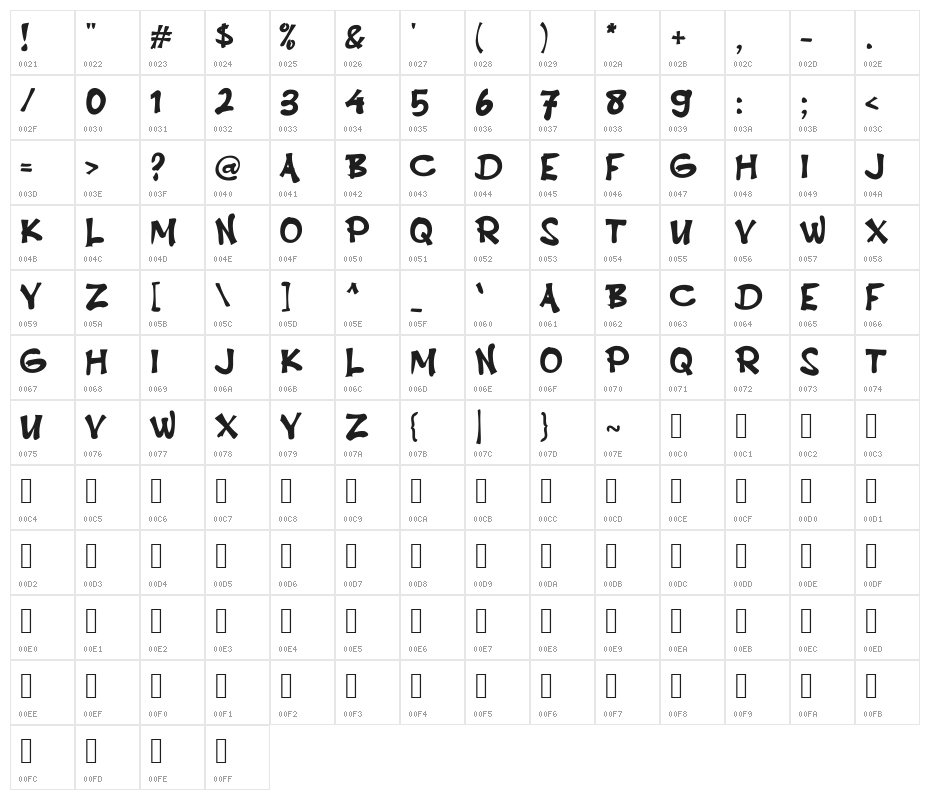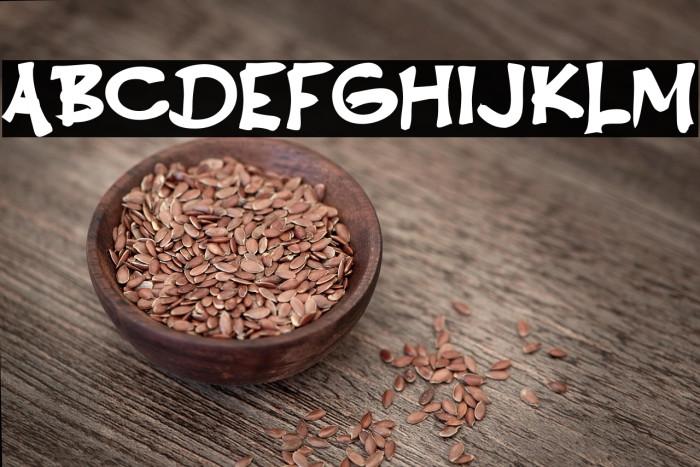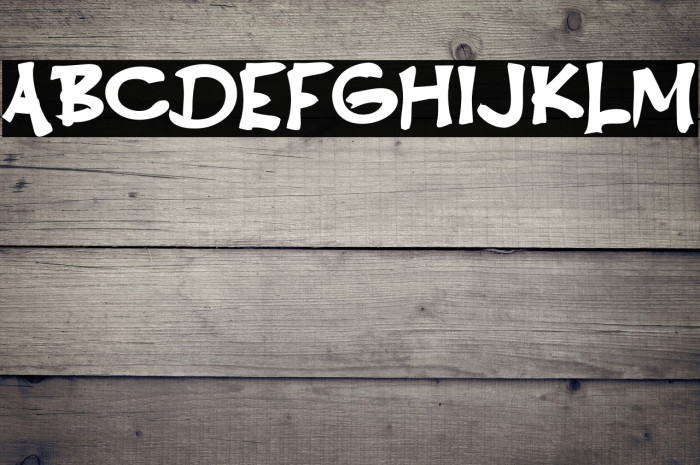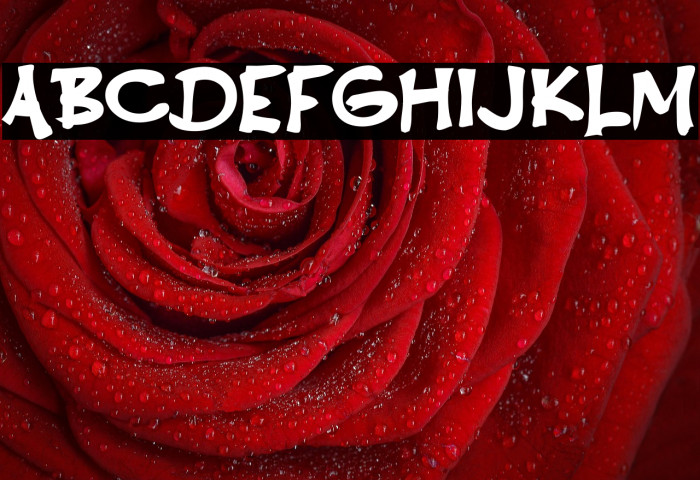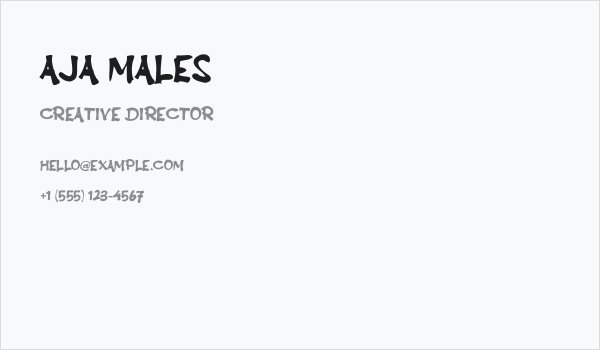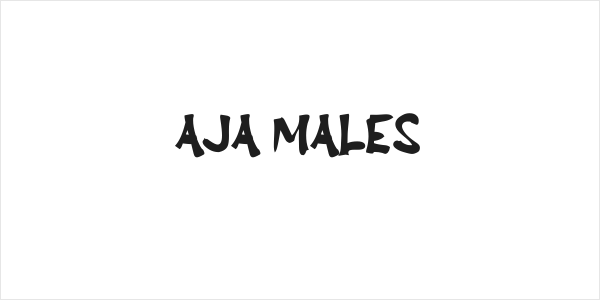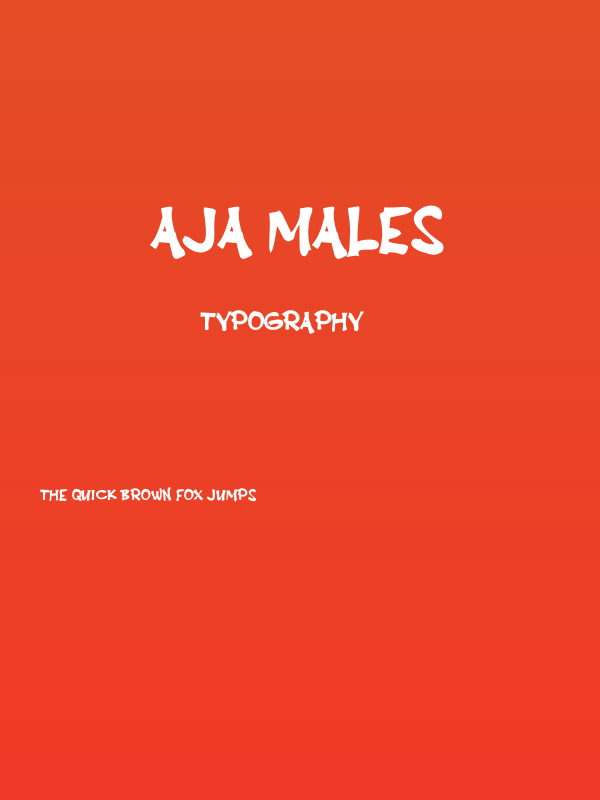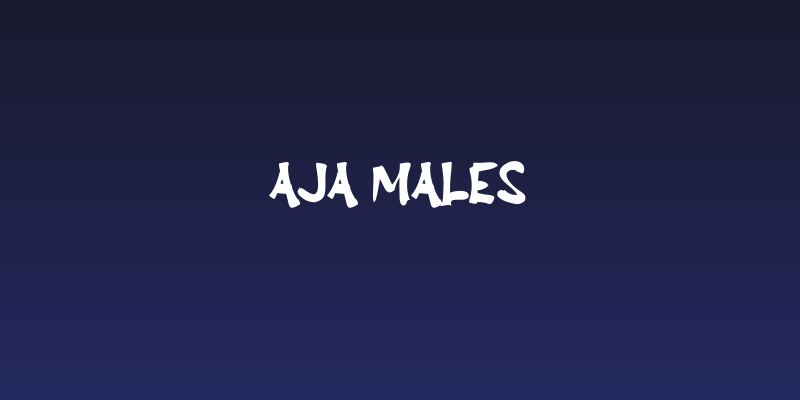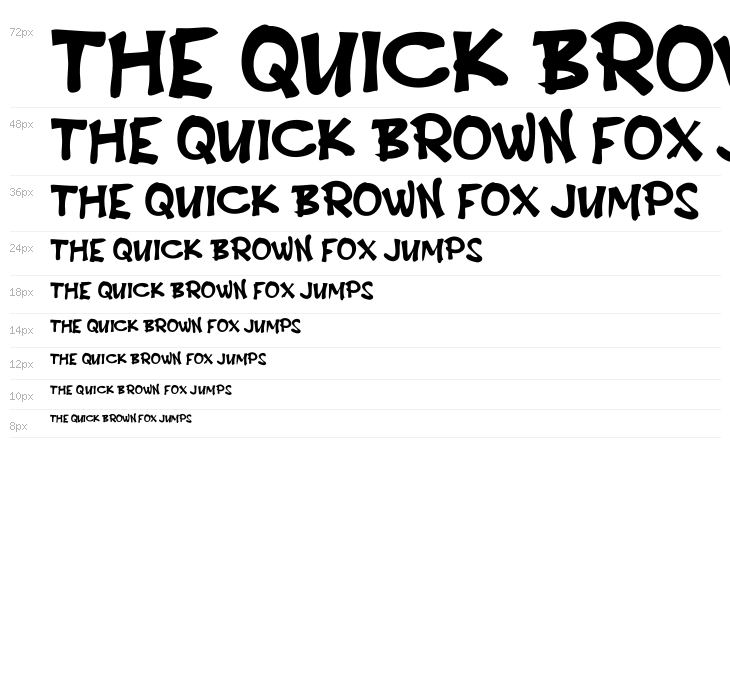
Aja Males Font
Aja Males Description
This font features a bold and playful style with a handwritten appearance. The letters are thick and slightly irregular, giving them a dynamic and energetic feel. The uppercase and lowercase characters maintain a consistent weight, contributing to a cohesive look. The numerals and special characters follow the same design principles, ensuring uniformity across all elements. The strokes are rounded and smooth, enhancing the font's approachable and friendly vibe. This style is ideal for projects that require a touch of whimsy and creativity.
Overall StylePlayful
Proposed ProjectsIdeal for children's books, playful branding, posters, and creative invitations.